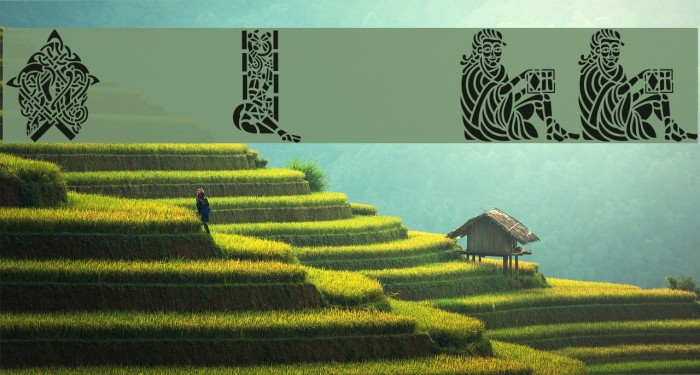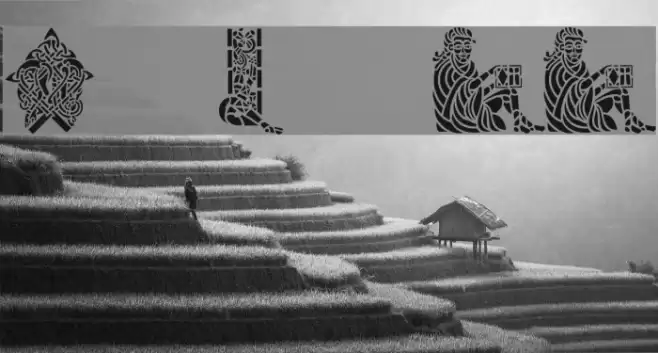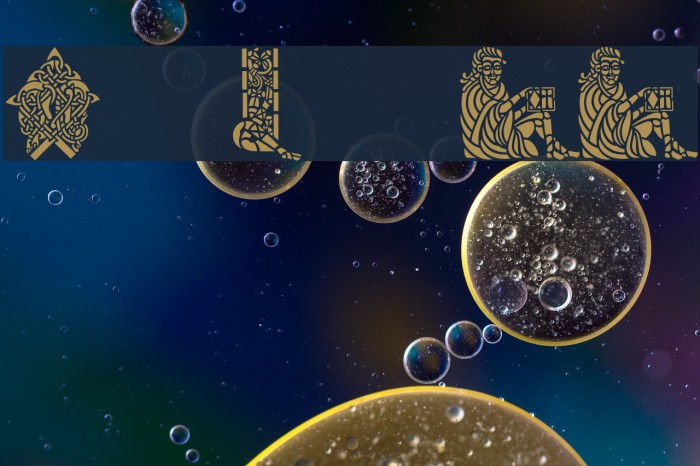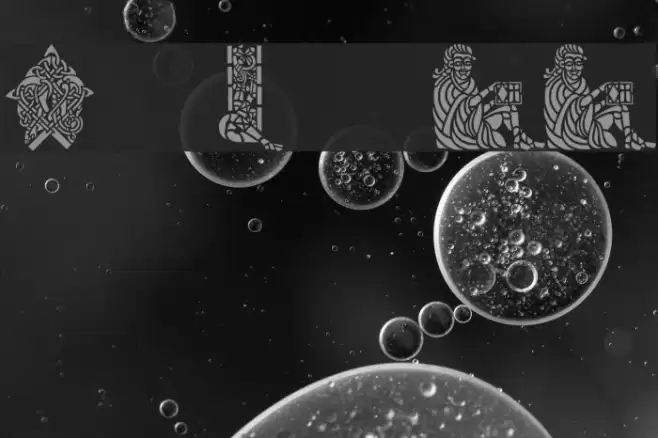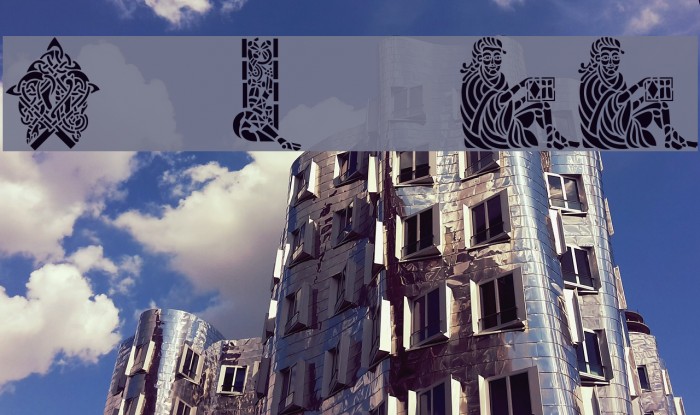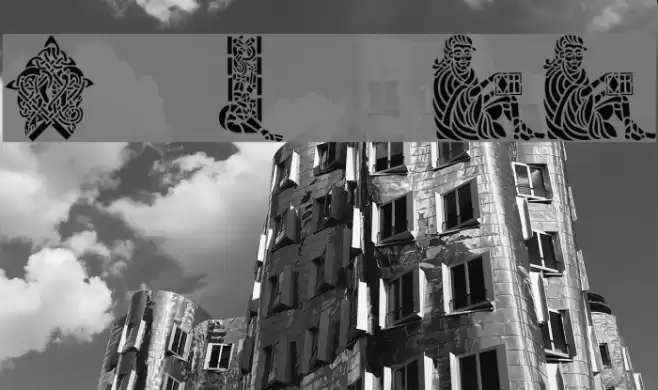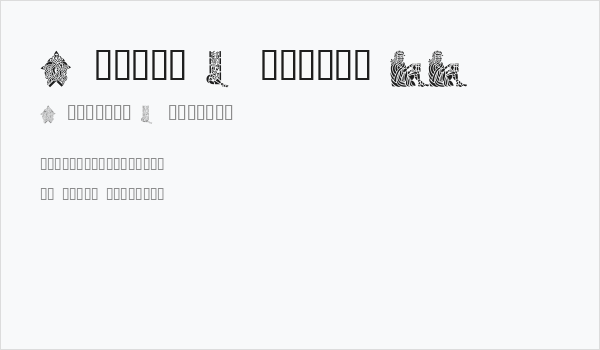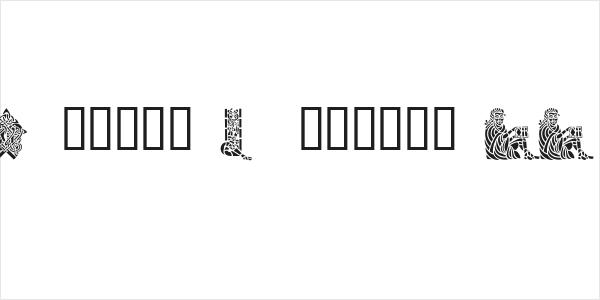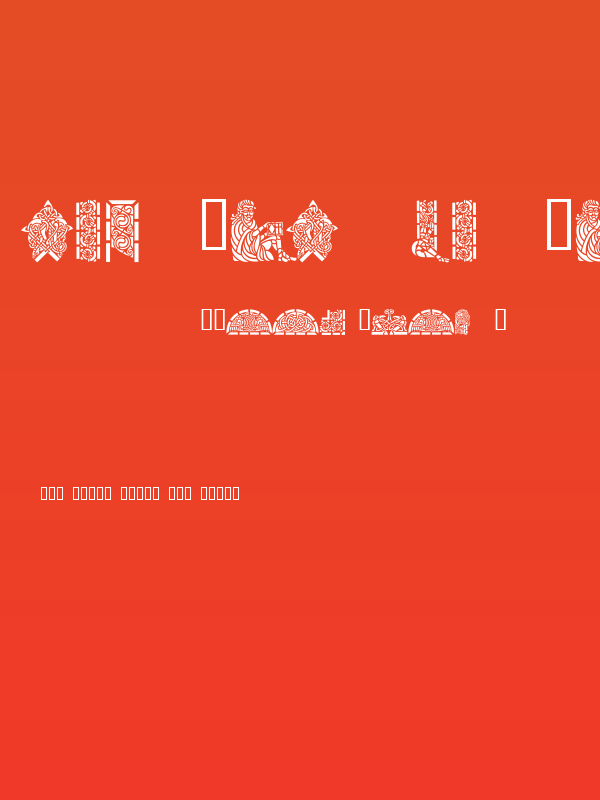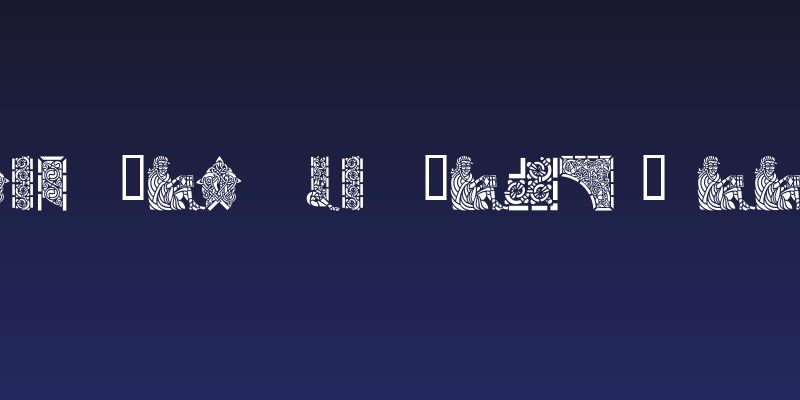
Celtic Designs II Font
Celtic Designs II Description
This font is a decorative display typeface inspired by intricate Celtic designs. It features elaborate knotwork and ornamental patterns that are reminiscent of ancient Celtic art. The characters are highly stylized, with each letter incorporating unique, intertwining motifs that create a sense of complexity and artistry. The font is primarily designed for decorative purposes, making it ideal for projects that require a touch of historical or cultural flair. Its intricate details and bold presence make it unsuitable for body text but perfect for headlines, logos, and artistic designs.
| Proposed Projects | Ideal for use in cultural event posters, historical themed designs, book covers, and artistic logos. |